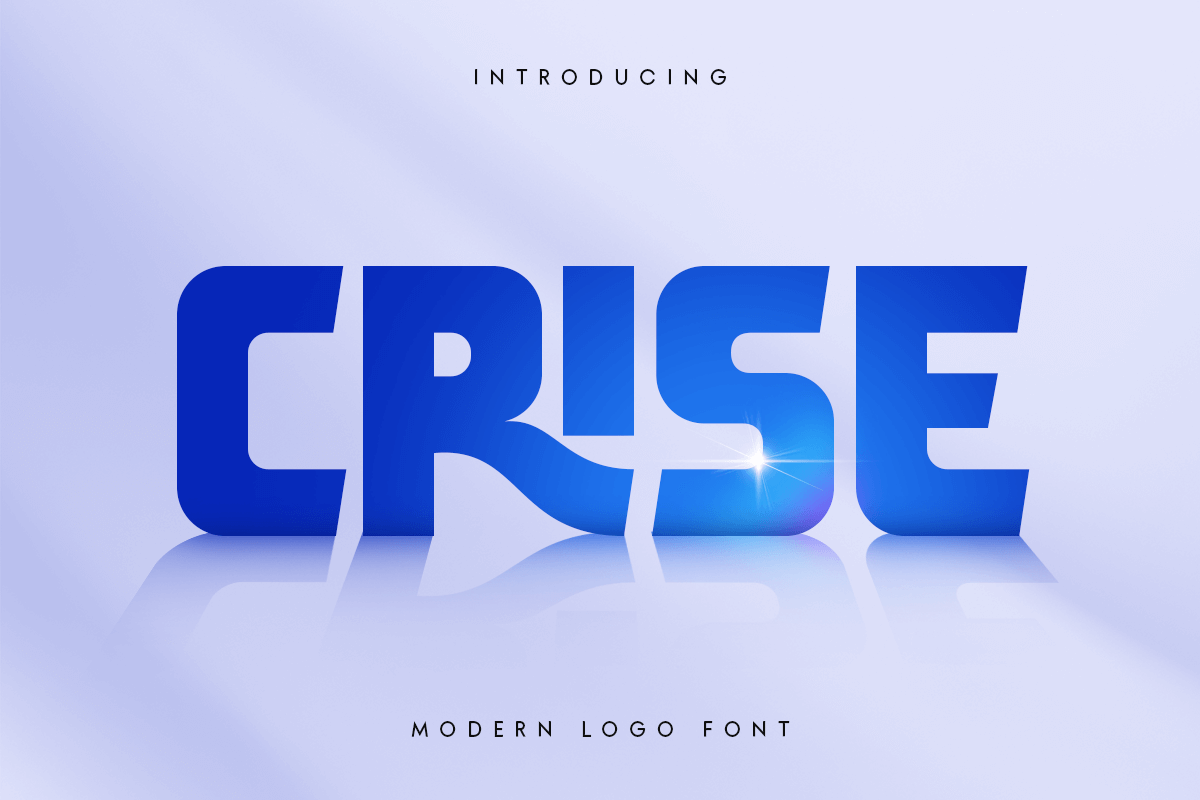
Crise
-Modern Logo FontCRISE is a modern logo font designed to elevate your brand with its sleek and professional design. Inspired by contemporary aesthetics, CRISE combines clean lines and elegant curves to create a font that is both stylish and versatile. Perfect for logo design, branding materials, and any project that requires a modern touch, CRISE ensures your designs are both eye-catching and memorable. The story behind CRISE is rooted in the need for a font that captures the essence of modernity while providing flexibility for various design needs. Crafted with precision, CRISE is the result of meticulous design work aimed at creating a unique and dynamic font that stands out in any context. Whether you are working on a logo, website header, or advertising campaign, CRISE offers the perfect balance of elegance and functionality. Its modern design makes it suitable for creative professionals looking to add a touch of sophistication to their projects. With CRISE, you can achieve a polished and contemporary look that enhances the visual appeal of your brand. Elevate your designs with CRISE and make a lasting impression with this modern logo font.
CRISE Modern logo font ready with:
Any options to get creative variations with unique letters
Preview as a inspirations that you can do with this font
Ready with Lowercase and Uppercase characters
Modern design & Versatile for various projects
Ideal for logos and branding
Stylish and professional will enhances visual appeal
Discover the elegance and versatility of CRISE, the modern logo font that transforms your brand's identity.